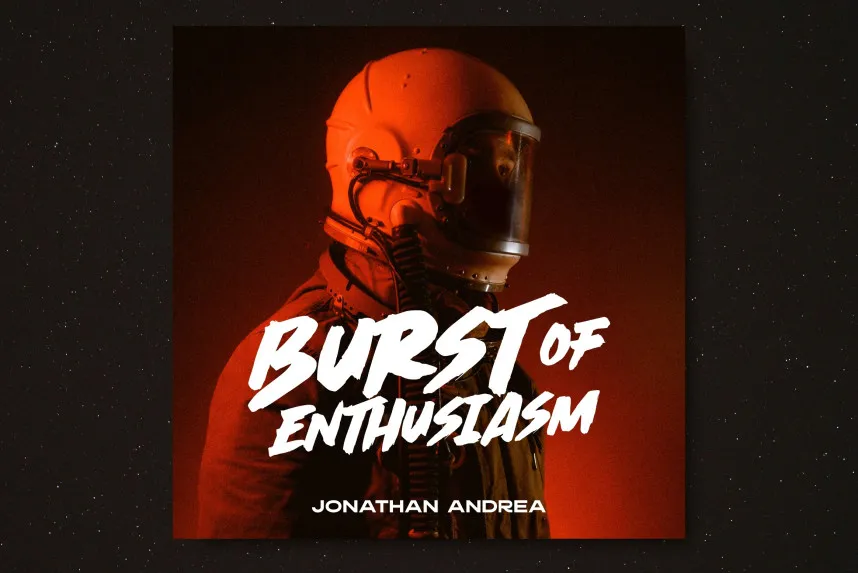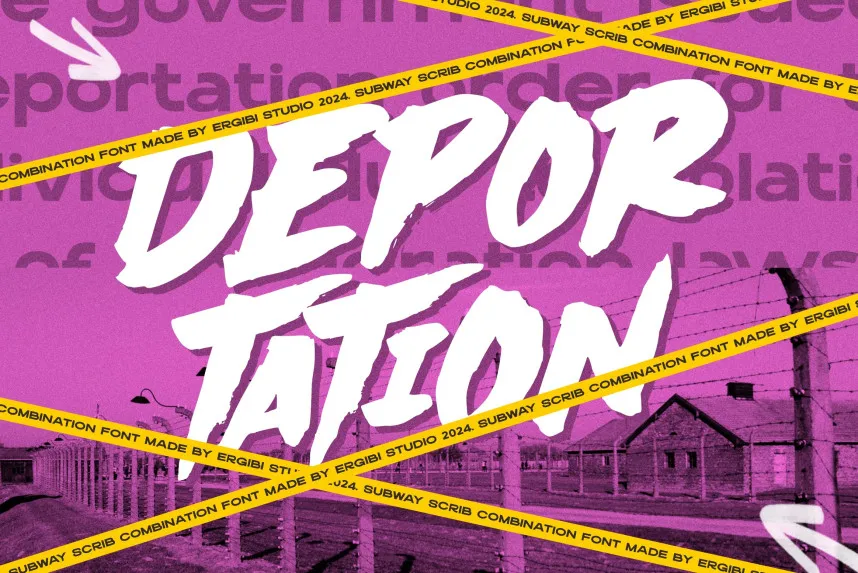
Subway Scrib Font has an urban and artistic style. It looks like handwritten graffiti, making it bold and full of energy. Its raw design connects with the street art culture.
This font works well in creative projects that want to look edgy and expressive. From fashion branding to music covers, Subway Scrib adds a unique identity. It reflects independence and creativity.
The irregular strokes give it personality. Each letter looks alive and full of movement. This makes it especially useful for projects aimed at younger or trendier audiences.
Designers appreciate this font because it does not look polished or formal. It celebrates creativity in its pure form. It adds character and strength to any project.
Subway Scrib can be used for posters, logos, and bold graphics. Its striking appearance makes sure the message is noticed quickly. It is built for making statements.
Usage Perfect for streetwear branding, album covers, and posters
Special Feature Handwritten graffiti style with rough edges
By using Subway Scrib, you are not only adding a font, you are adding attitude and energy. It makes designs look fresh, urban, and full of life.